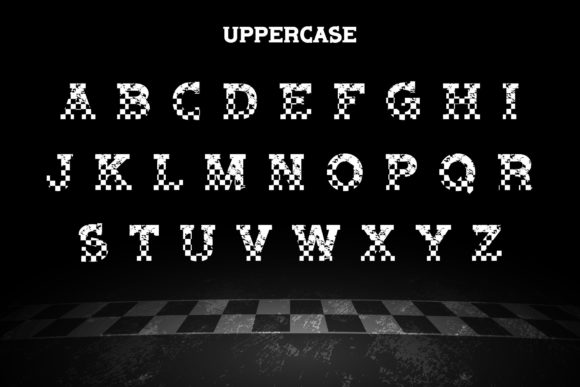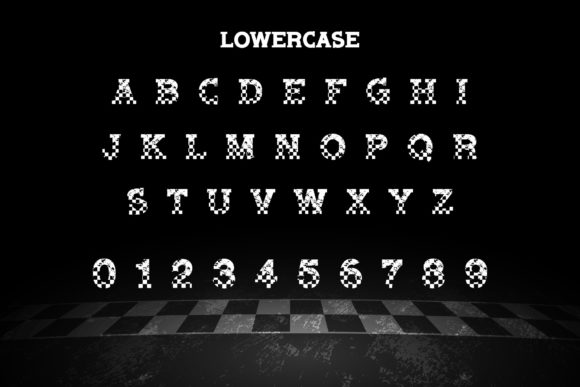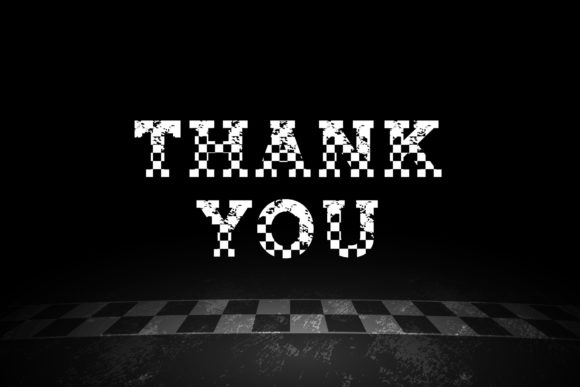
Introduction to Master Racing Font
Do you remember the thrill of racing through the night, the rush of adrenaline as you sped past the finish line? For designers, the excitement of creating a project that captures that same energy and style can be just as exhilarating. And that’s exactly what the Master Racing Font is all about – bringing a touch of retro cool to your creative projects.
Whether you’re working on a blog post, a logo, or a branding campaign, the Master Racing Font is a valuable resource that can help you stand out from the crowd. With its high-quality design and transparent background, this free download is a must-have for any designer looking to add a little extra flair to their work. In this article, we’ll take a closer look at the Master Racing Font and explore its many uses and benefits.
Key Features of Master Racing Font
- High-quality design: Master Racing Font is a premium font designed for creative projects that require a bold and racing-inspired look.
- Large character set: The font includes a large character set, including uppercase and lowercase letters, numbers, and special characters.
- Unique racing-inspired design: The font’s unique design elements, such as the bold lines and dynamic shapes, make it perfect for creative projects that require a high-energy look.
Honest Review: Master Racing Font
As a designer, I’m always on the lookout for high-quality design resources to enhance my creative projects. I recently came across the Master Racing Font, and I’m excited to share my honest review with you.
The Master Racing Font is a free download that offers a sleek and modern design perfect for any project that requires a bold and edgy look. ✨ One of the standout features of this font is its transparent background, which makes it incredibly versatile and easy to use.
However, I do have a few minor complaints ⚠️. The font is not ideal for projects that require a lot of text, as it can become overwhelming and difficult to read. Additionally, the font’s bold and edgy design may not be suitable for all types of creative projects.
Overall, I’m impressed with the Master Racing Font and would recommend it to designers who are looking for a high-quality design resource for their creative projects. Just be sure to use it judiciously and consider the type of project you’re working on.
Master Racing Font is commonly used for sports-related designs, such as racing-themed posters, jerseys, and other merchandise. It’s also great for creating high-energy graphics for events, promotions, and marketing campaigns.
To get the most out of Master Racing Font, be sure to use it on a transparent background to give your design a clean and modern look. You can also experiment with different font sizes and colors to create a high-impact design.